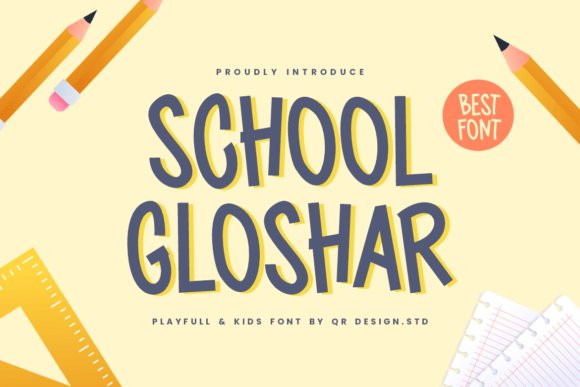
Introducing School Gloshar Font: A Sweet and Friendly Handwritten Font
When it comes to creating visually appealing designs, the right font can make all the difference. A font that is not only aesthetically pleasing but also conveys the right tone and personality is essential for any design project. This is where School Gloshar Font comes in – a sweet and friendly handwritten font that is perfect for a wide range of design applications.
What is School Gloshar Font?
School Gloshar Font is a beautifully crafted handwritten font that boasts a natural and unique style. Its sweet and friendly demeanor makes it incredibly fitting for a large pool of designs, from educational materials to creative projects. The font’s versatility is limitless, and the only limit is your imagination!
Key Features of School Gloshar Font
- Handwritten style: School Gloshar Font has a genuine handwritten look that adds a personal touch to any design.
- Natural and unique: The font’s natural and unique style sets it apart from other fonts, making it perfect for designs that require a distinctive look.
- Sweet and friendly: The font’s sweet and friendly tone makes it ideal for designs that require a approachable and inviting feel.
- Highly versatile: School Gloshar Font can be used for a wide range of design applications, from educational materials to creative projects.
Design Applications for School Gloshar Font
School Gloshar Font is perfect for a variety of design applications, including:
- Educational materials: The font’s sweet and friendly tone makes it ideal for educational materials, such as textbooks, workbooks, and educational posters.
- Creative projects: School Gloshar Font is perfect for creative projects, such as logo designs, branding materials, and social media graphics.
- Stationery and invitations: The font’s handwritten style makes it perfect for stationery and invitations, such as birthday cards, wedding invitations, and thank-you notes.
- Digital products: School Gloshar Font can be used for digital products, such as e-books, apps, and video games.
Tips for Using School Gloshar Font
Here are some tips for using School Gloshar Font effectively:
- Pair it with other fonts: School Gloshar Font can be paired with other fonts to create a unique and visually appealing design.
- Use it for headings and titles: The font’s sweet and friendly tone makes it perfect for headings and titles.
- Experiment with colors: School Gloshar Font can be used with a variety of colors to create a design that is both visually appealing and effective.
Benefits of Using School Gloshar Font
Here are some benefits of using School Gloshar Font:
- Unique and distinctive: School Gloshar Font has a unique and distinctive style that sets it apart from other fonts.
- Easy to read: The font’s clear and legible design makes it easy to read, even for extended periods.
- Versatile: School Gloshar Font can be used for a wide range of design applications.
- Time-saving: The font’s pre-designed letters and characters save time and effort in the design process.
In conclusion, School Gloshar Font is a sweet and friendly handwritten font that is perfect for a wide range of design applications. Its natural and unique style makes it incredibly fitting for designs that require a distinctive look. With its versatility, ease of use, and unique style, School Gloshar Font is a great addition to any design project.